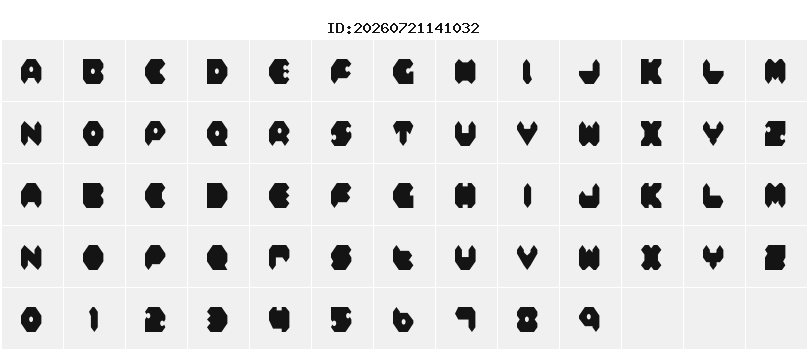
Feldercarb Condensed Preview
• Font Name: Feldercarb Condensed
• Font Style: Condensed
• Full Font Name: Feldercarb Condensed
About Feldercarb Condensed.ttf
Feldercarb Condensed.ttf is a modern, elegant sans-serif font designed for ultimate readability and visual harmony. Perfect for branding, headlines, web design, and print materials.